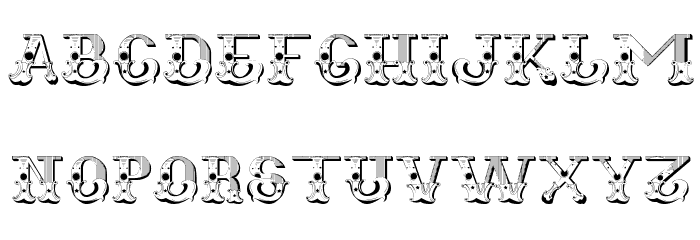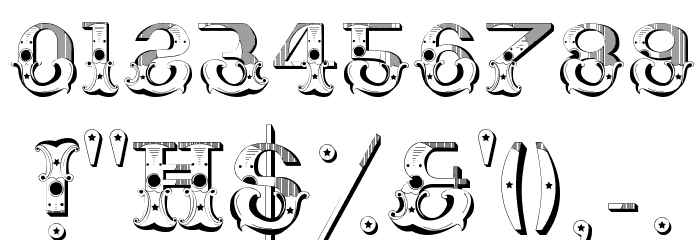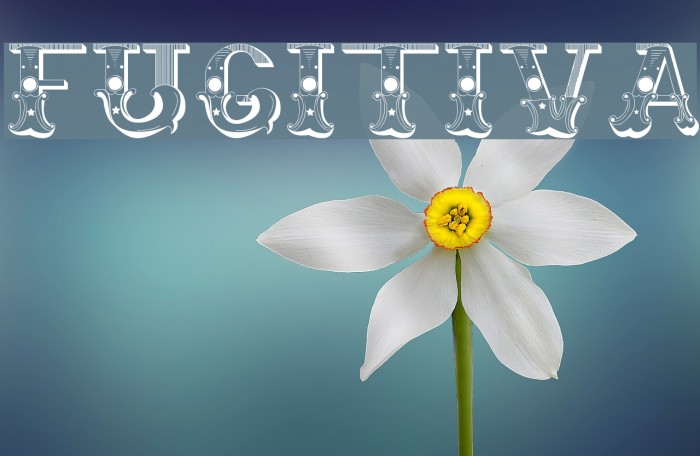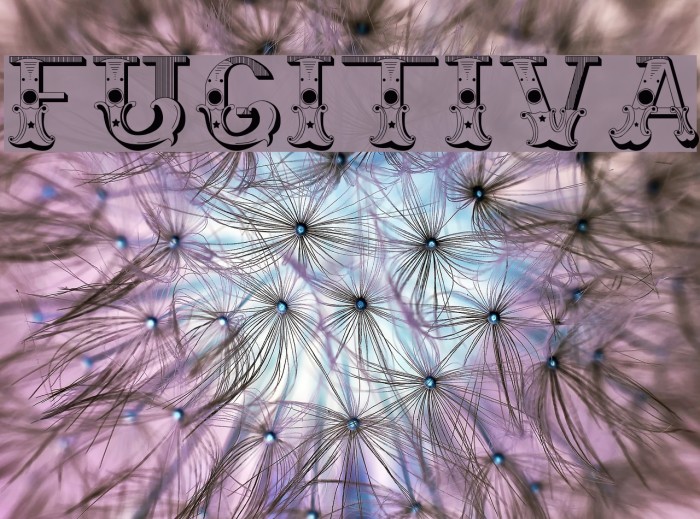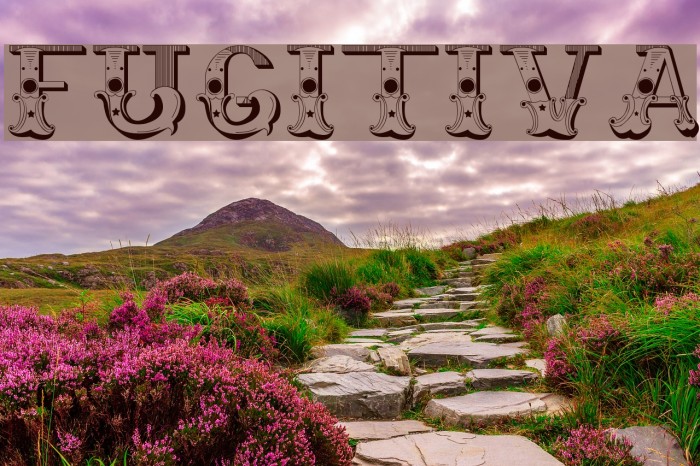
Fugitiva Font
This font features an ornate and decorative style, characterized by intricate detailing and embellishments within each character. The letters have a bold presence with a three-dimensional effect, enhanced by shadows and highlights that give them a carved appearance. The design includes flourishes and ornamental elements, making it highly decorative and suitable for eye-catching displays. The overall look is reminiscent of vintage or circus-themed typography, with a playful yet sophisticated aesthetic.
An ornate, decorative font with intricate detailing and a vintage flair.
- Proposed Projects: Ideal for vintage-themed posters, circus or carnival event flyers, decorative signage, and artistic book covers.
- Overall Style: Vintage, Decorative